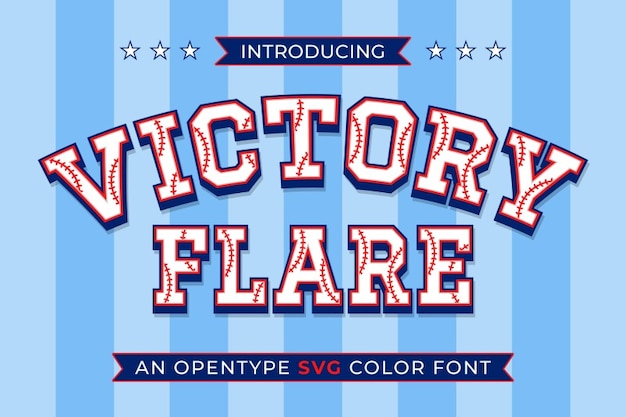
"Victory Flare" is a bold, sporty font inspired by the energy of baseball and varsity spirit. Its strong, blocky letterforms with sharp angles capture the essence of athletic pride and competition. Perfect for team logos, sports merchandise, and event posters, "Victory Flare" adds a dynamic, classic edge that embodies the thrill of the game and the pride of victory.